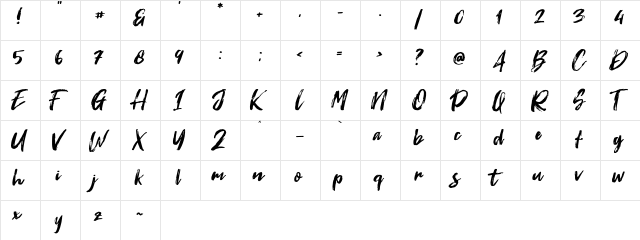
Fontrust Regular
Design Context for Fontrust Typeface
Fontrust is a composed and adaptable typeface that performs quietly and consistently across a wide range of design contexts.